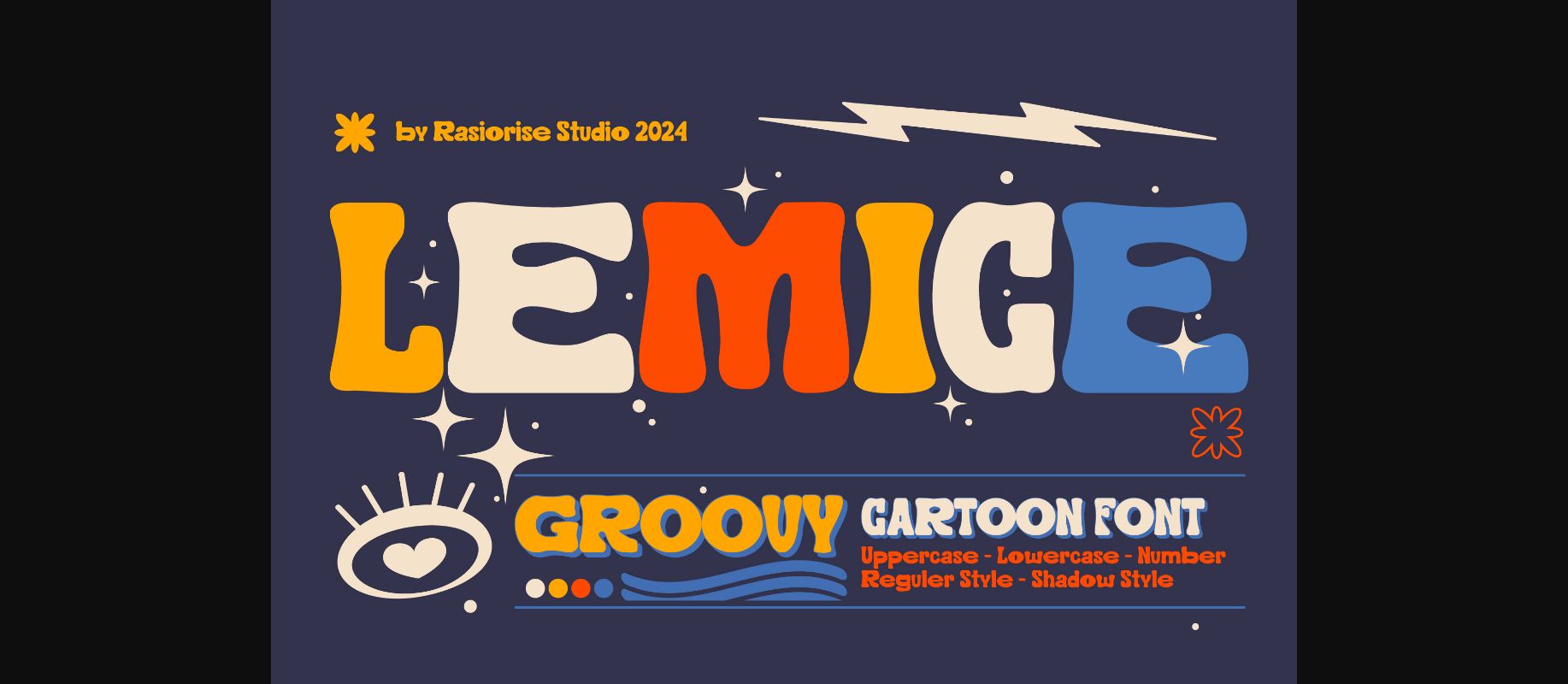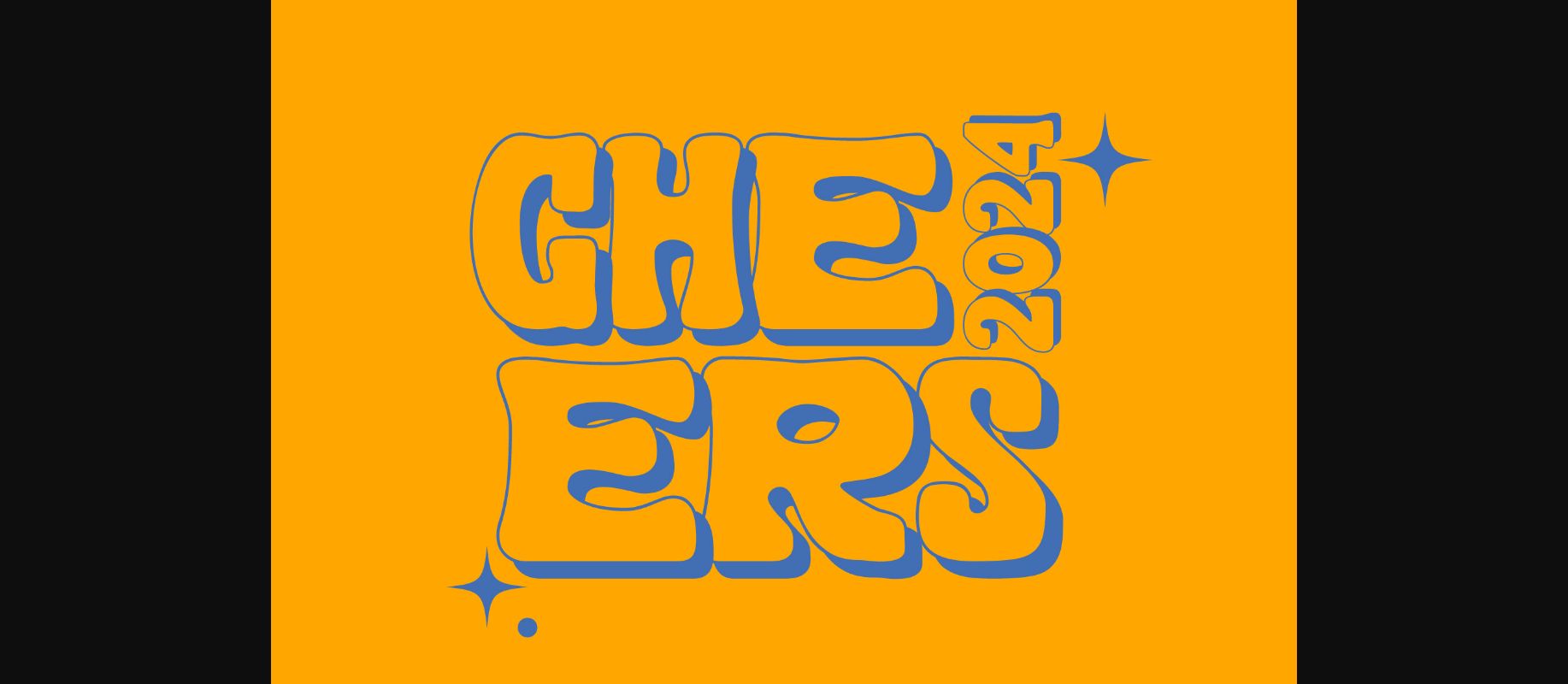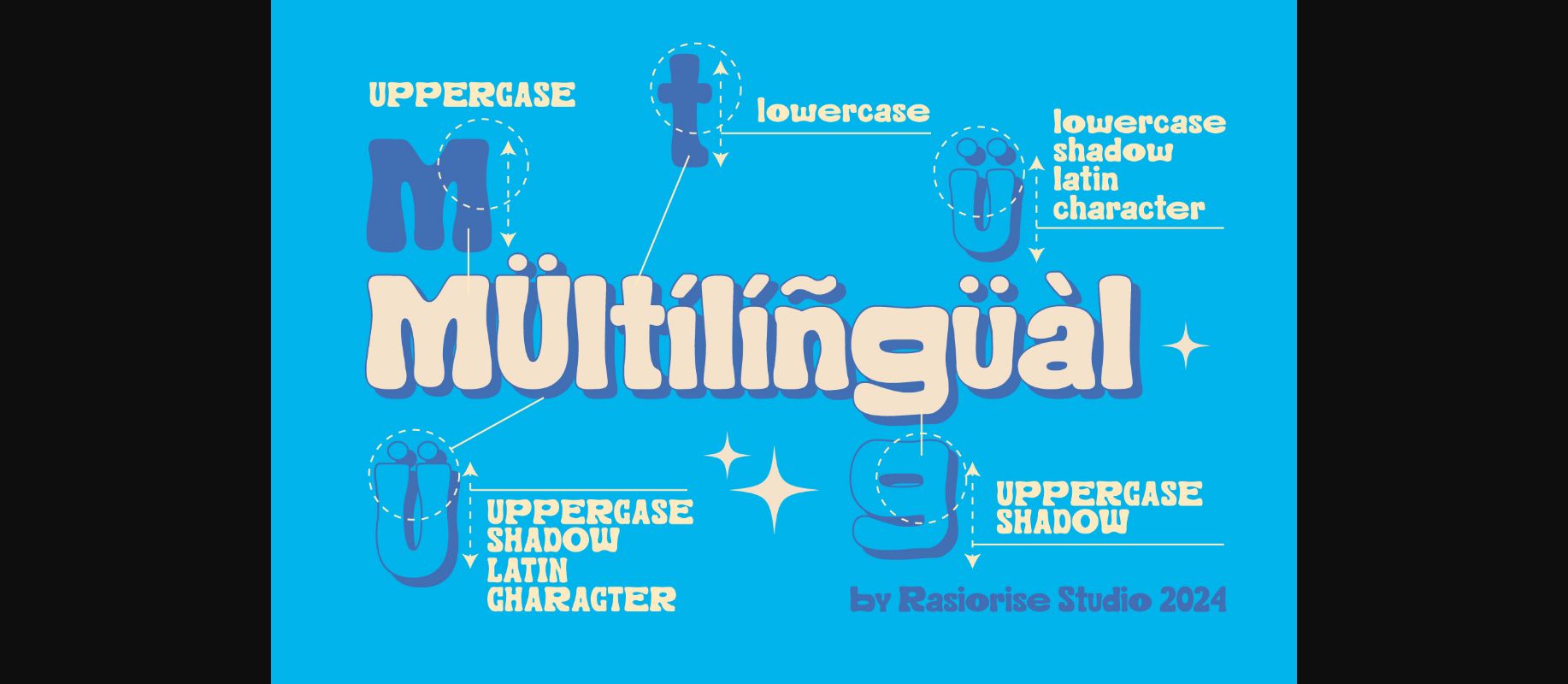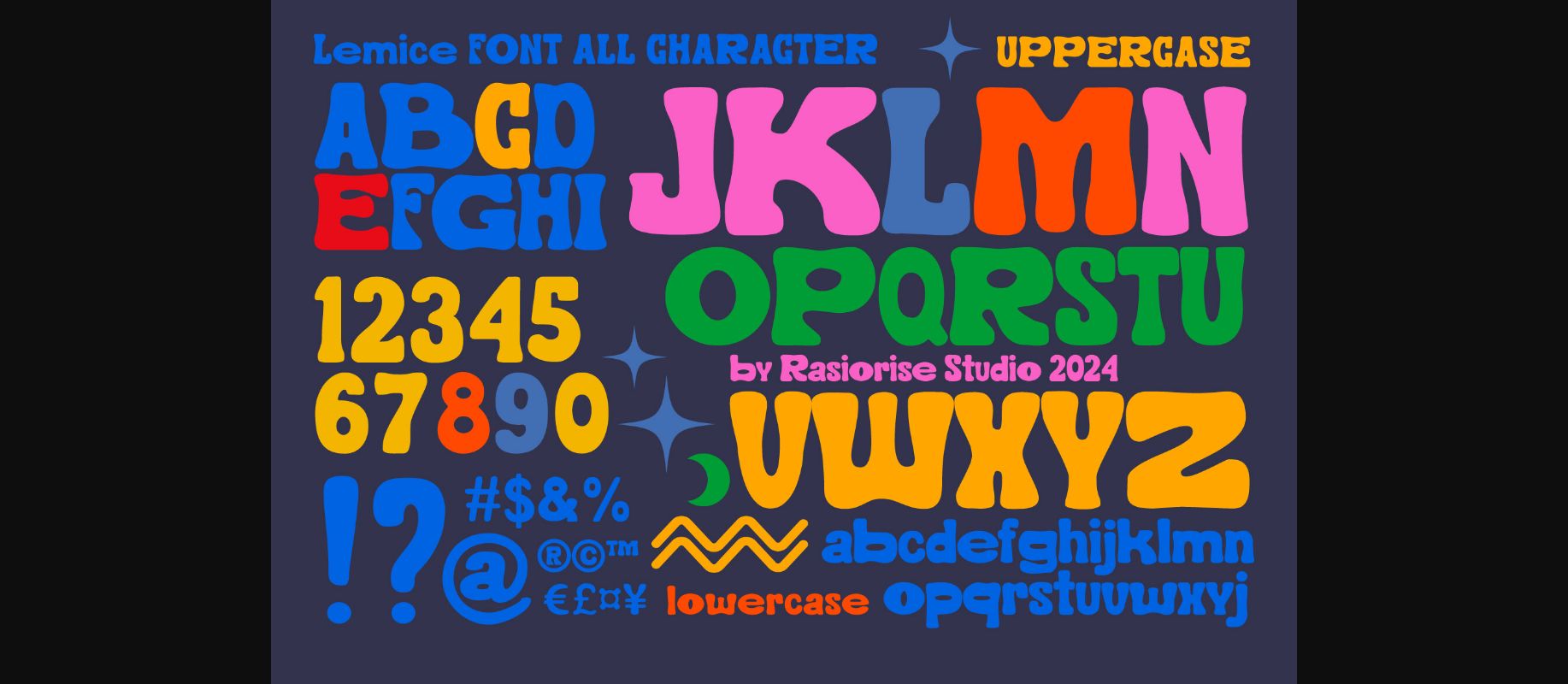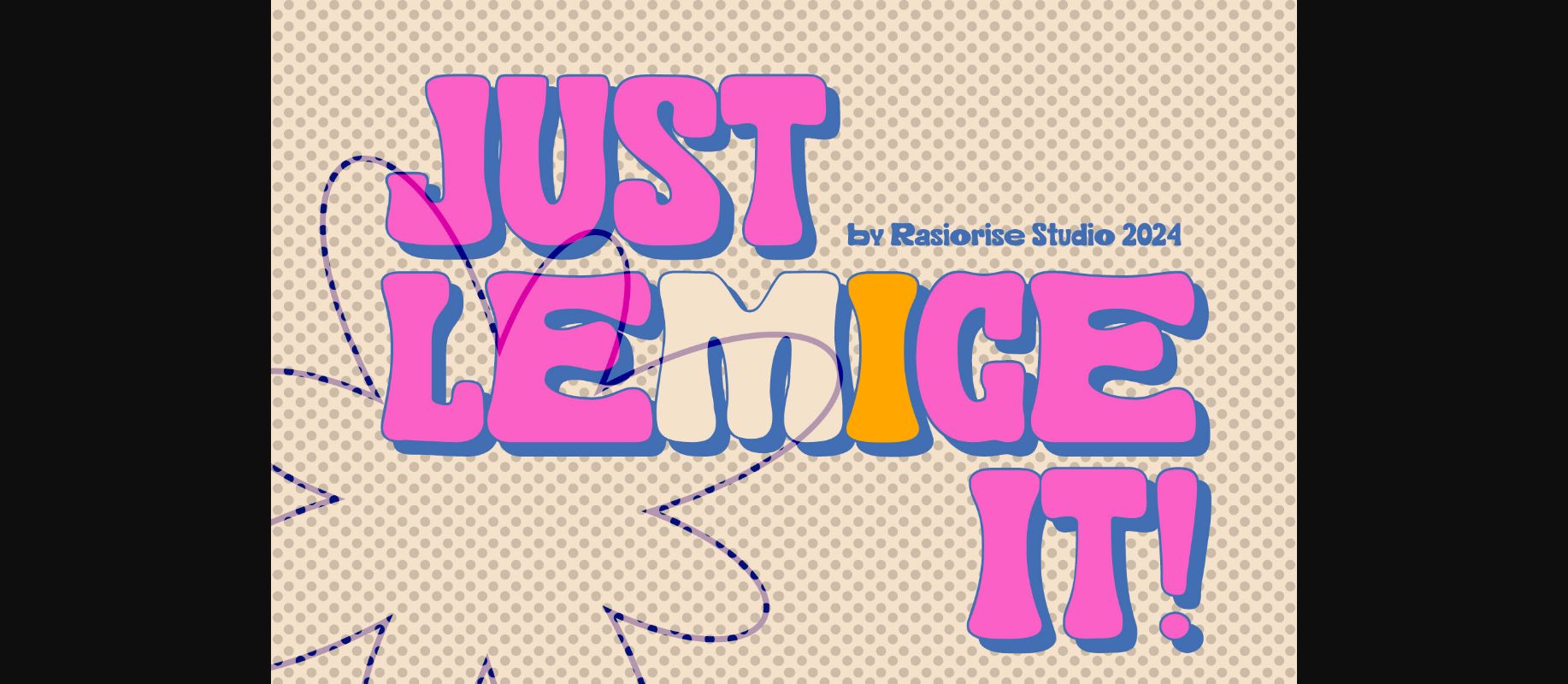
About Lemice Font
Lemice has been released for those of you who are looking for a Retro Bold Groovy San-serif font, The font is inspired by the retro classic font style with a few combine to turn them into a bit of a groovy modern style including 2 character font, Regular font and Shadow Character font. Very suitable for Logotype, Book Cover, Children Book, Comic Text, Poster and much more